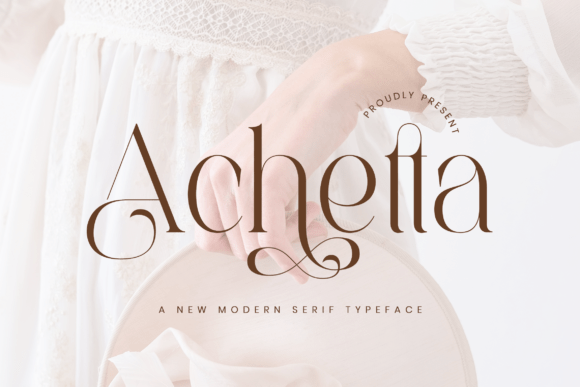
The Achetta Font: A Minimalist’s Dream Come True
I’ll never forget the design project that led me to discover the Achetta font. I was working on a branding campaign for a trendy boutique hotel, and my client requested a logo that exuded modernity and sophistication. As I scoured font libraries and design marketplaces, I stumbled upon Achetta – a stylish ligature typeface that instantly caught my eye. Its clean lines, elegant curves, and clever use of ligatures made it the perfect fit for my project.
- ✨ Stunning Ligatures: Achetta’s ligatures are truly exceptional, adding a touch of elegance to any design.
- ✅ Multilingual Support: With Achetta, I can create designs for clients worldwide, knowing that the font will support various languages.
- 🎨 Versatile: Achetta is perfect for a wide range of design applications, from logos and branding to brochures and advertisements.
While Achetta is an excellent font, there are a few minor limitations to consider:
- 🤔 Limited Extras: The font package doesn’t include a wide range of extra glyphs or variations, but what it does offer is well-crafted and versatile.
- ⚠️ Requires OpenType Support: Some older design software or platforms may not support OpenType features, which could limit Achetta’s full potential.
The Story Behind Achetta
Achetta was inspired by the minimalist design movement of the 20th century. Its creator aimed to craft a font that would embody the simplicity and elegance of iconic logos from that era. With Achetta, you’ll get a taste of that timeless design philosophy in your projects.
Q: Does Achetta support non-English languages?
Yes, Achetta includes multilingual support, making it a great choice for designs intended for international audiences.